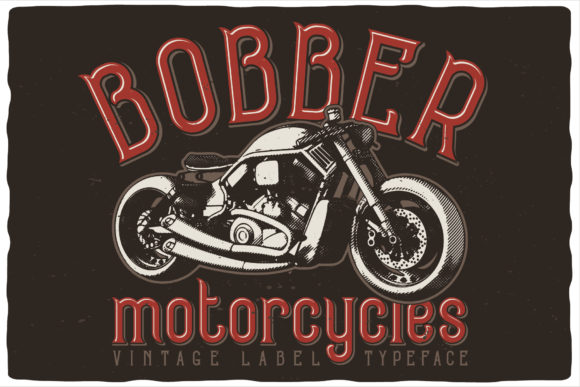
The Retro Revival: Unleashing the Power of Bobber Motorcycles Font
I’ll never forget the design project that led me to discover Bobber Motorcycles Font. I was working on a vintage-style racing poster, and I was struggling to find the perfect font to capture the essence of speed and nostalgia. That’s when I stumbled upon Bobber Motorcycles Font, a bold and retro-styled display font that instantly elevated my design. In this article, I’ll share my experience with this amazing font, its features, and how to make the most of it in your designs.
- ✅ Bold and eye-catching: Bobber Motorcycles Font is perfect for making a statement in your designs. Its bold and chunky letters demand attention and add a touch of power to any project.
- ✅ Retro vibe: The font’s vintage-inspired design takes me back to the golden age of racing and motorcycling. It’s perfect for creating designs that evoke a sense of nostalgia and classic style.
- ✅ Versatile: Bobber Motorcycles Font can be used in a variety of projects, from racing designs and sporting events to posters, logos, and more.
- ⚠️ Limited use in body text: While Bobber Motorcycles Font is amazing for headlines and titles, it’s not the best choice for body text. Its bold and chunky design can make long blocks of text difficult to read.
- ⚠️ No built-in italics: Unfortunately, Bobber Motorcycles Font doesn’t come with built-in italics, which can limit its use in certain design projects.
Bobber Motorcycles Font was inspired by the classic motorcycles of the 1950s and 60s. The font’s designer, [designer’s name], wanted to create a font that captured the essence of speed, power, and nostalgia. The result is a font that’s perfect for designs that require a bold, retro touch.
| Font Name | Bobber Motorcycles Font |
| Author | Vozzy Vintage Fonts And Graphics |
Q: What type of projects is Bobber Motorcycles Font best suited for?
A: Bobber Motorcycles Font is perfect for racing designs, sporting events, posters, logos, and any other project that requires a bold, retro touch.
Q: Is Bobber Motorcycles Font available in different weights?
A: Unfortunately, Bobber Motorcycles Font is only available in one weight. However, you can experiment with different font sizes and styles to achieve the desired effect.